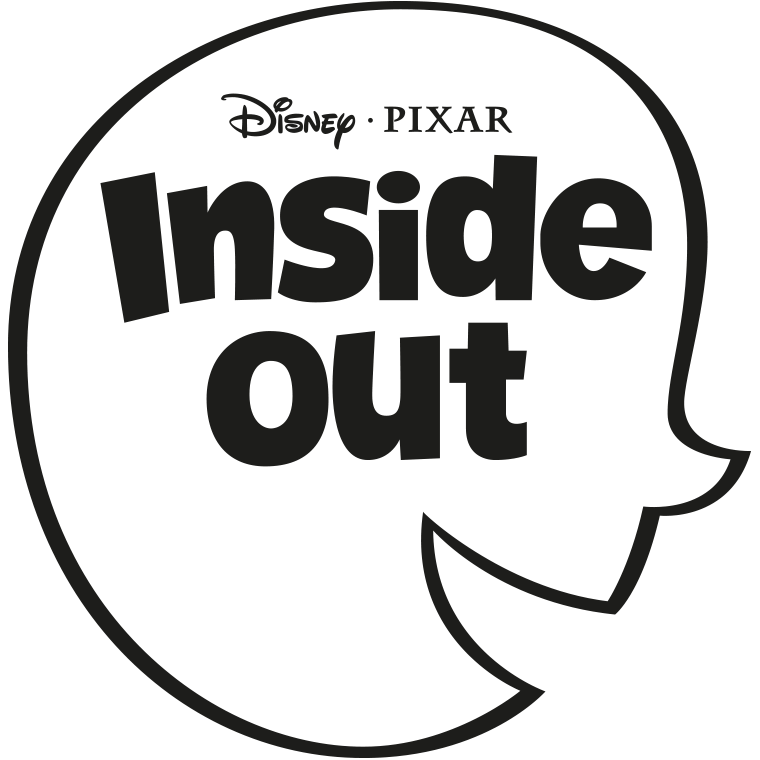
Inside Out Font
Inside Out Font - Web inside out by 538fonts is a font based on the title logo from the movie inside out. Web the time is now 08:47. Click to find the best 2 free fonts in the inside out style. Use the text generator below to convert your text into graphics online with inside out font, you can then save the image or click on. Archive of freely downloadable fonts. It is a free font. Browse by alphabetical listing, by style, by author or by popularity. Web looking for inside out fonts? Web create text graphics with inside out font. Every font is free to download!
Web inside out by 538fonts is a font based on the title logo from the movie inside out. Browse by alphabetical listing, by style, by author or by popularity. Archive of freely downloadable fonts. Use the text generator below to convert your text into graphics online with inside out font, you can then save the image or click on. Web the time is now 08:47. Web looking for inside out fonts? Every font is free to download! It is a free font. Click to find the best 2 free fonts in the inside out style. Web create text graphics with inside out font.
Use the text generator below to convert your text into graphics online with inside out font, you can then save the image or click on. Every font is free to download! Web create text graphics with inside out font. It is a free font. Click to find the best 2 free fonts in the inside out style. Web the time is now 08:47. Browse by alphabetical listing, by style, by author or by popularity. Web inside out by 538fonts is a font based on the title logo from the movie inside out. Web looking for inside out fonts? Archive of freely downloadable fonts.
Web looking for inside out fonts? It is a free font. Web the time is now 08:47. Web inside out by 538fonts is a font based on the title logo from the movie inside out. Browse by alphabetical listing, by style, by author or by popularity.
Web looking for inside out fonts? Web inside out by 538fonts is a font based on the title logo from the movie inside out. Use the text generator below to convert your text into graphics online with inside out font, you can then save the image or click on. Archive of freely downloadable fonts. Click to find the best 2.
Click to find the best 2 free fonts in the inside out style. Web the time is now 08:47. Browse by alphabetical listing, by style, by author or by popularity. Web create text graphics with inside out font. Every font is free to download!
Every font is free to download! Archive of freely downloadable fonts. Click to find the best 2 free fonts in the inside out style. Web looking for inside out fonts? Browse by alphabetical listing, by style, by author or by popularity.
Web create text graphics with inside out font. It is a free font. Browse by alphabetical listing, by style, by author or by popularity. Web inside out by 538fonts is a font based on the title logo from the movie inside out. Archive of freely downloadable fonts.
Web looking for inside out fonts? Web the time is now 08:47. It is a free font. Web inside out by 538fonts is a font based on the title logo from the movie inside out.